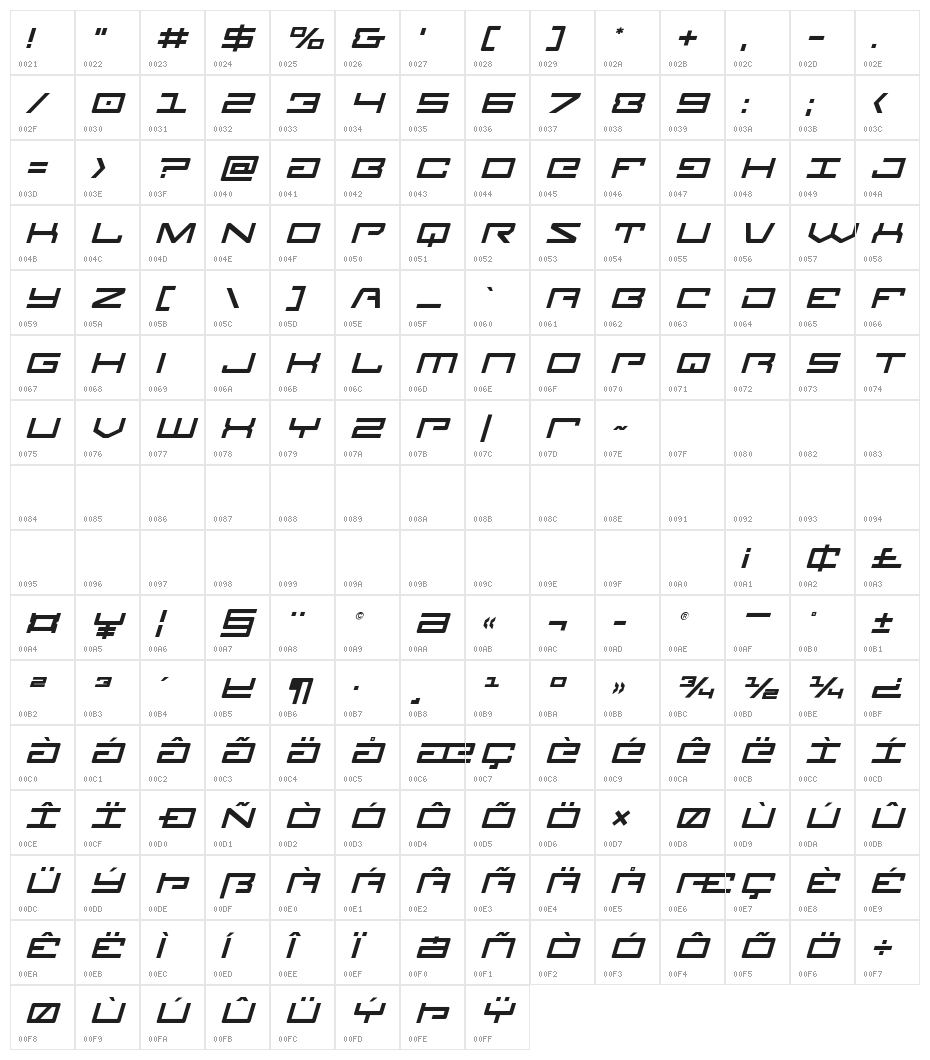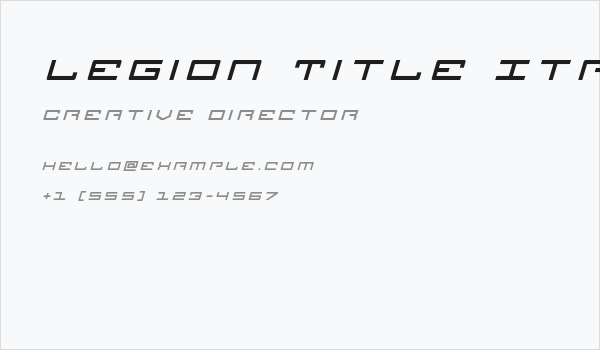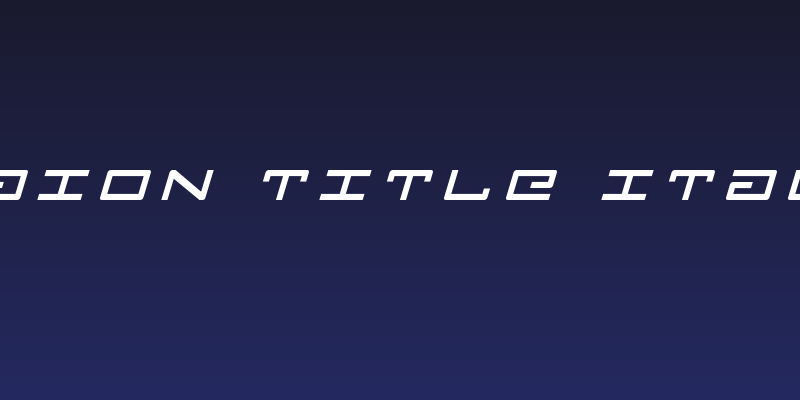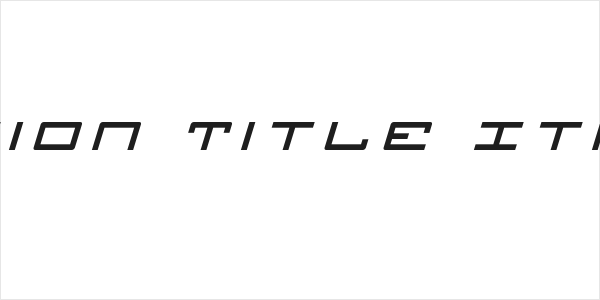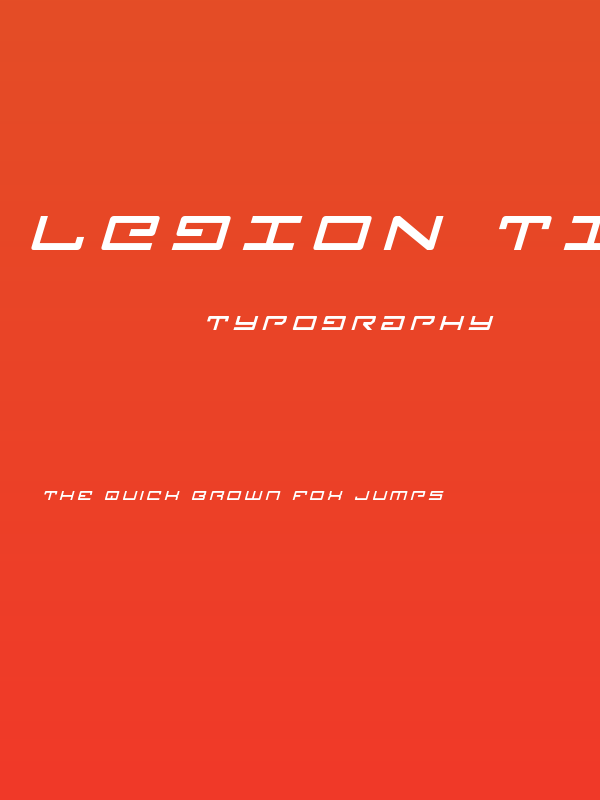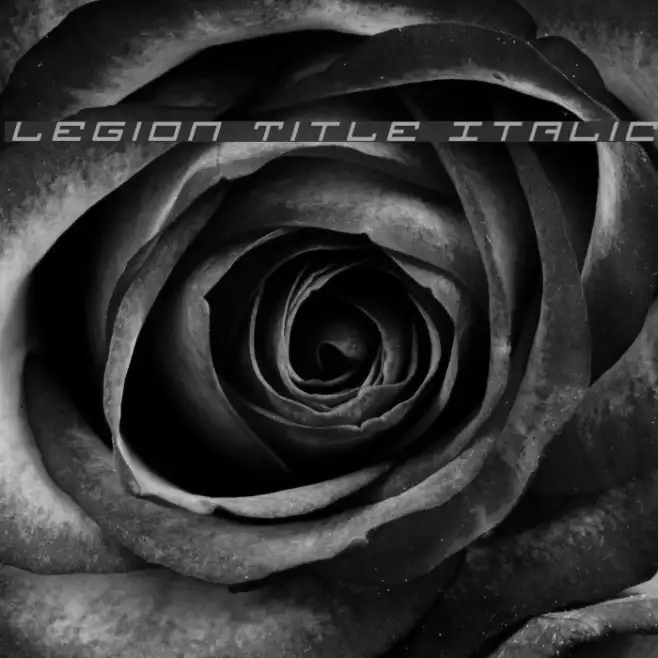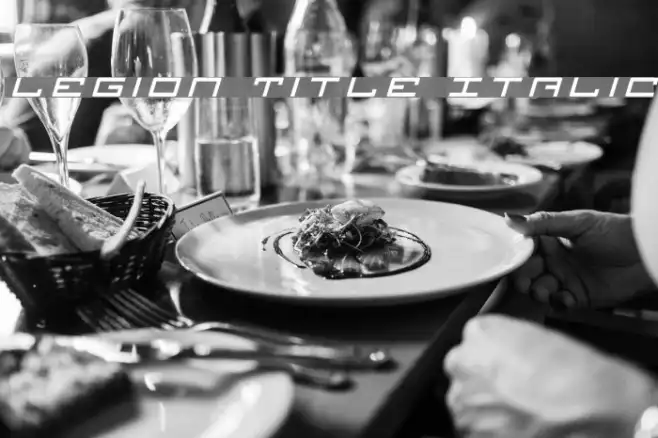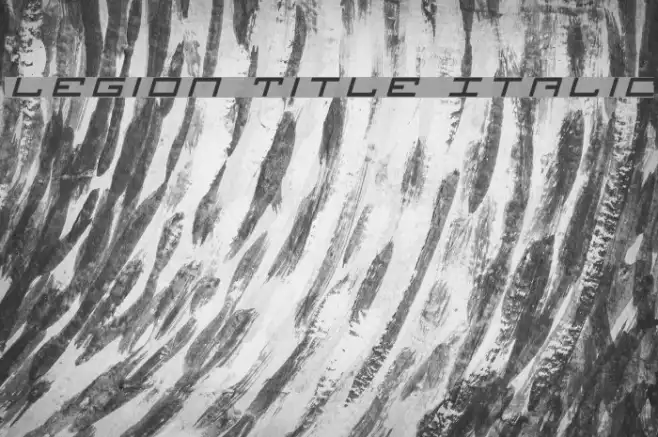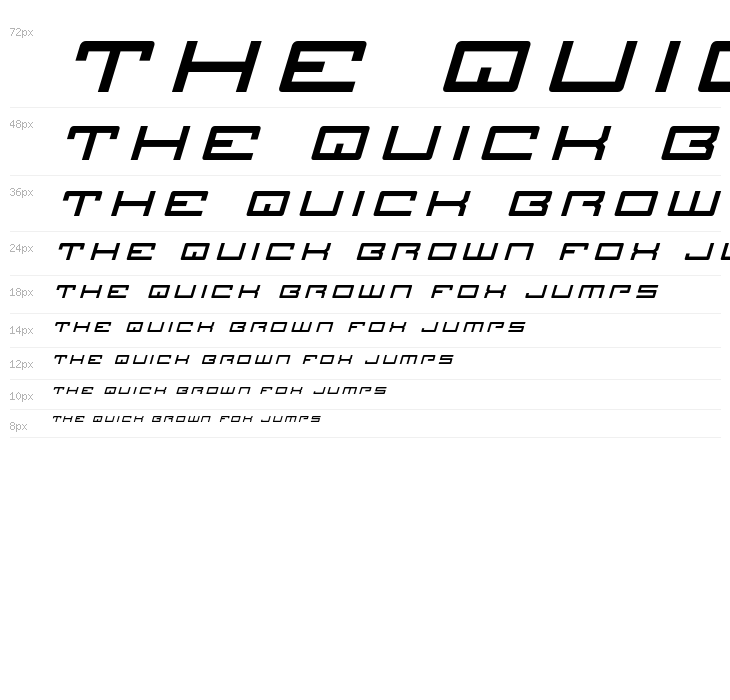
Legion Title Italic Font
Legion Title Italic Description
This font features a sleek, futuristic design with a distinct italic slant, giving it a dynamic and forward-moving appearance. The characters are angular and geometric, with sharp edges and a consistent stroke width that conveys a sense of precision and modernity. The uppercase and lowercase letters maintain a uniform style, enhancing readability while preserving a unique aesthetic. The numerals and special characters are designed to match the overall style, ensuring cohesion across different uses. This font's bold and italic characteristics make it stand out, suitable for projects that require a strong visual impact.
| Proposed Projects | Ideal for sci-fi themed designs, tech branding, video game titles, and modern posters. |